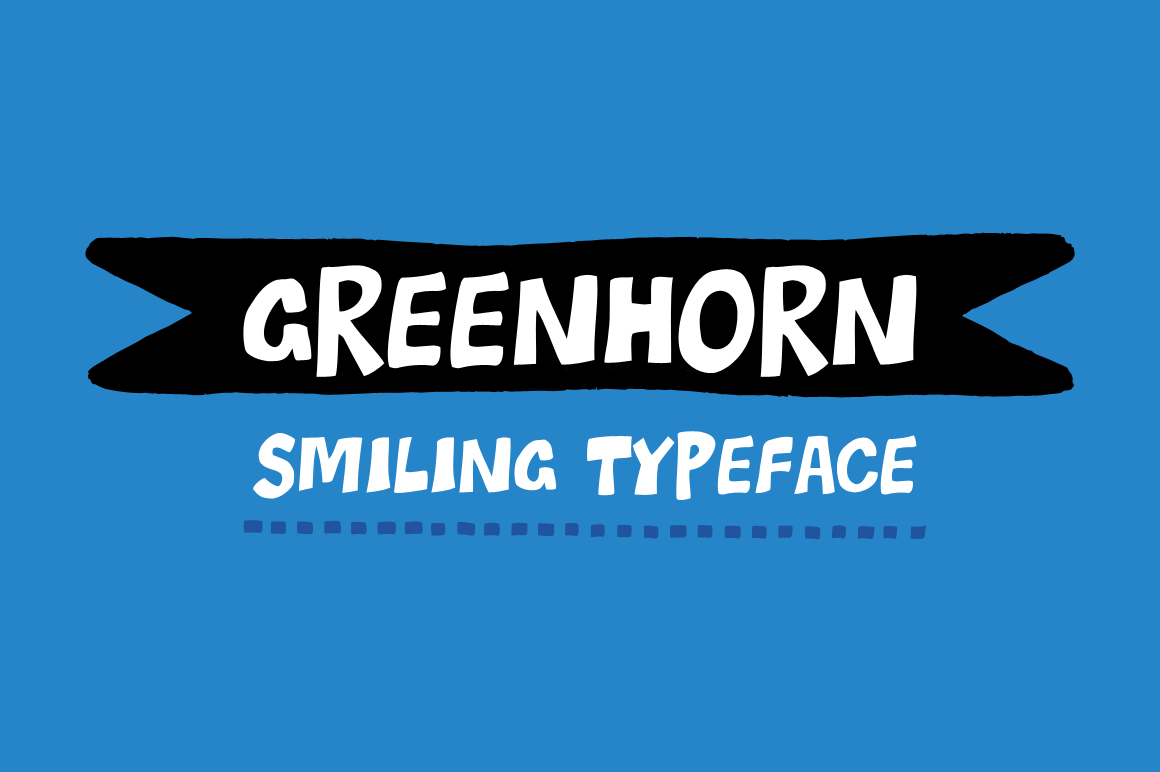
Greenhorn Font
Greenhorn is a hand-traced comic type for headlines. Funky, irregular and smiling. The first inspiration comes from the unique lettering of a classic czech cartoonist.